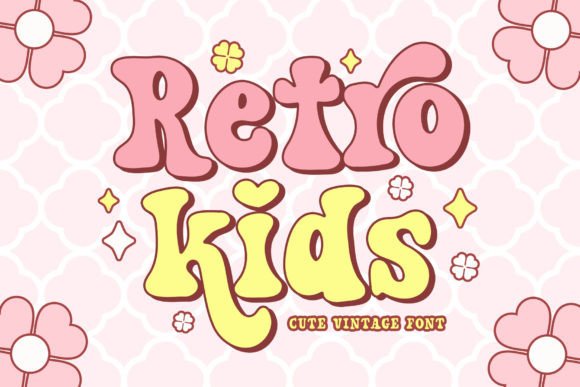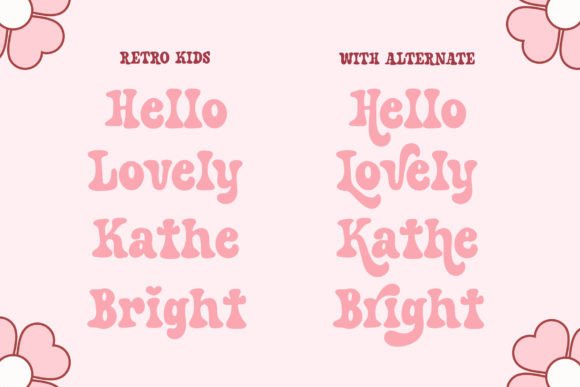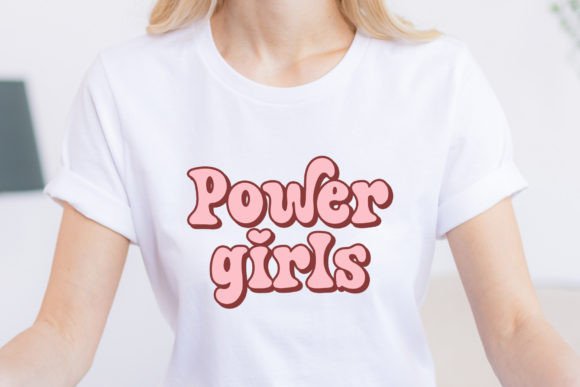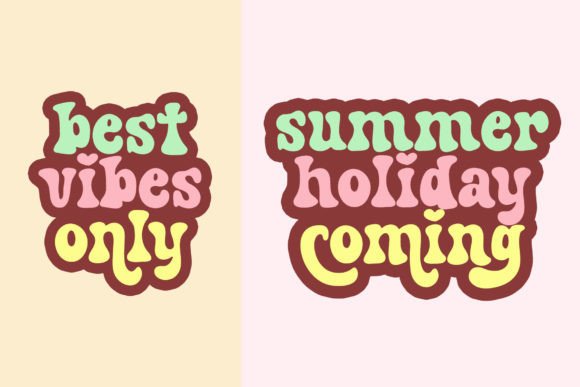
Retro Kids Font
About the Retro Kids Font
Elevate your designs with Retro Kids Font, a font that combines sophistication with readability. Retro Kids is cute retro serif font It has vintage, groovy, and fun vibes. This font is special font for back to school theme.
It has some alternates for uppercase and lowercase to give more options in designing.
This font is adorable font for design that needs cute and retro touch, such as back to school design, kids design, birthday invitation, summer design, t-shirt design, crafting, sticker, sublimation, and many more.
Retro Kids excels in headline applications, short playful phrases, and branding projects targeting a youthful audience. It’s ideal for packaging, posters, and social media graphics where a fun, vintage aesthetic is desired. However, its stylistic quirks make it unsuitable for body text or UI elements requiring high readability.
The font’s personality is undeniably cheerful and nostalgic. To complement this, consider pairing it with a clean sans-serif like Open Sans for body copy or a playful script font like Pacifico for added emphasis. A geometric sans-serif like Montserrat could provide a modern counterpoint, balancing the retro feel.
Avoid using Retro Kids in contexts demanding seriousness or sophistication. Its charm lies in its playful energy, making it best suited for projects that celebrate youthful exuberance and a retro sensibility.